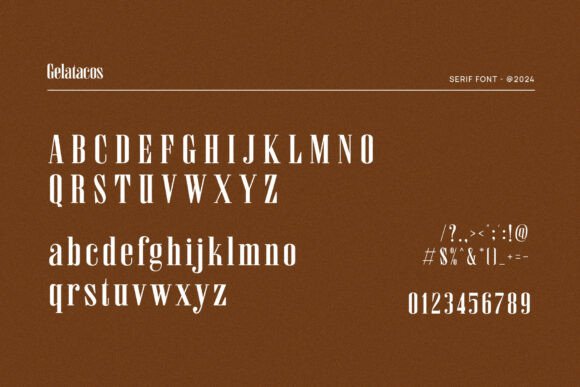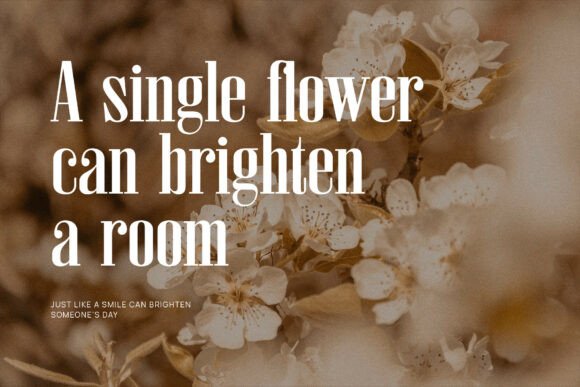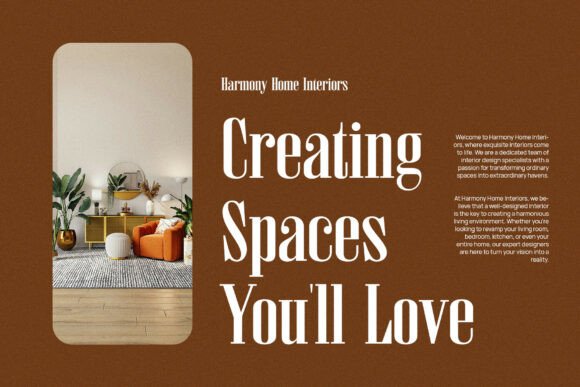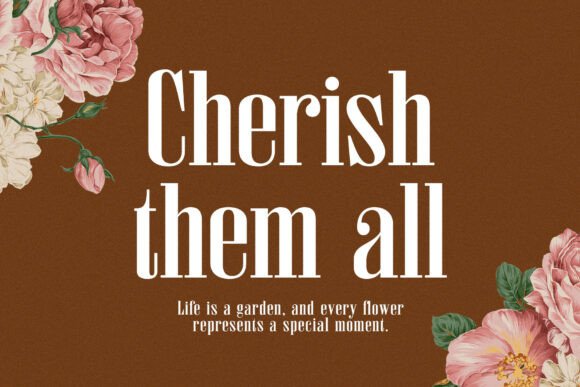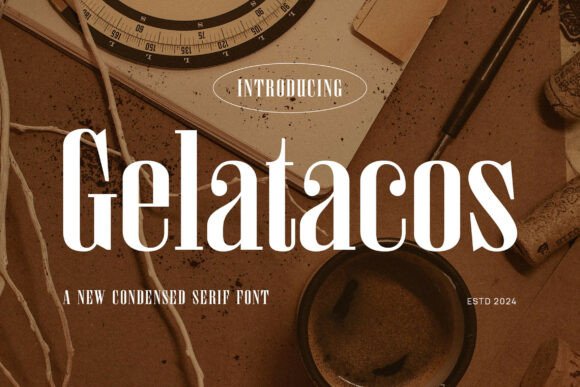
Discover the Timeless Elegance of Gelatacos Font
Are you a designer or crafter looking for a font that can elevate your creative projects to the next level? Look no further than Gelatacos Font, a lovely and timeless serif font that is sure to capture the attention of your audience. With its unique and beautiful touch, Gelatacos Font is the perfect choice for creating eye-catching logos, branding, and quotes that will make your design come alive!
The Characteristics of Gelatacos Font
Gelatacos Font is a serif font that exudes elegance and sophistication. Its classic design makes it an excellent choice for a wide range of creative projects, from logos and branding to quotes and marketing materials. Every letter in Gelatacos Font has been carefully crafted to have a unique and beautiful touch, which sets it apart from other fonts in its category.
Why Choose Gelatacos Font?
So, why should you choose Gelatacos Font for your next design project? Here are just a few reasons why Gelatacos Font stands out from the crowd:
- Timeless Design: Gelatacos Font has a timeless design that will never go out of style. Its classic serif design makes it an excellent choice for creating elegant and sophisticated designs.
- Unique and Beautiful Touch: Every letter in Gelatacos Font has a unique and beautiful touch that will make your design stand out. Whether you’re creating a logo, branding materials, or quotes, Gelatacos Font is sure to add a touch of elegance and sophistication.
- Ease of Use: Gelatacos Font is easy to use and can be easily integrated into a wide range of design projects. Whether you’re a seasoned designer or a beginner, Gelatacos Font is easy to work with and can help you achieve professional-looking results.
- Versatility: Gelatacos Font is a versatile font that can be used for a wide range of design projects. Whether you’re creating logos, branding materials, quotes, or marketing materials, Gelatacos Font is an excellent choice.
How to Use Gelatacos Font in Your Design Projects
Using Gelatacos Font in your design projects is easy. Here are a few tips to get you started:
- Pair it with Other Fonts: Gelatacos Font pairs well with other fonts, making it easy to create visually appealing designs. Try pairing it with a sans-serif font for a modern look or with another serif font for a more traditional look.
- Experiment with Different Sizes: Gelatacos Font looks great in a variety of sizes, from large headings to smaller body text. Experiment with different sizes to find the one that works best for your design project.
- Add a Pop of Color: Gelatacos Font looks great in a variety of colors, so don’t be afraid to add a pop of color to your design. Try using a bold color for headings or a more subtle color for body text.
Who Can Benefit from Using Gelatacos Font?
Gelatacos Font is an excellent choice for a wide range of designers and crafters, including:
- Graphic Designers: Gelatacos Font is an excellent choice for graphic designers who need to create logos, branding materials, and other marketing materials.
- Logotype Designers: Gelatacos Font is a great choice for logotype designers who need to create elegant and sophisticated logos.
- Crafters: Gelatacos Font is also an excellent choice for crafters who need to create beautiful and eye-catching designs for their handmade products.
| Author | Ariya Works Studio |
In conclusion, Gelatacos Font is a lovely and timeless serif font that is sure to capture the attention of your audience. With its unique and beautiful touch, Gelatacos Font is the perfect choice for creating eye-catching logos, branding, and quotes that will make your design come alive! Whether you’re a graphic designer, logotype designer, or crafter, Gelatacos Font is an excellent choice for your next design project.